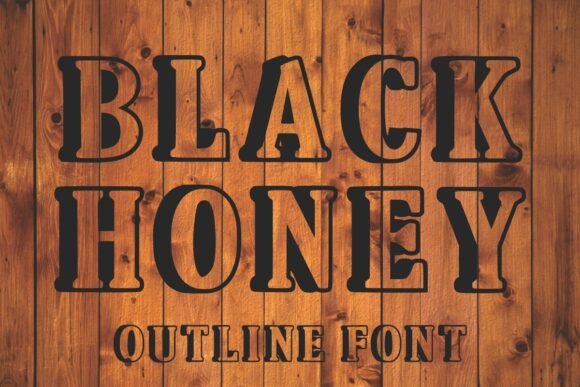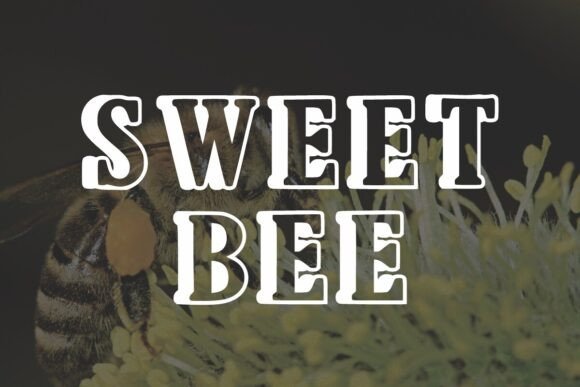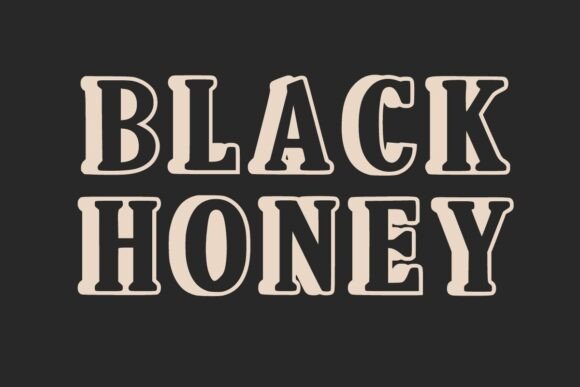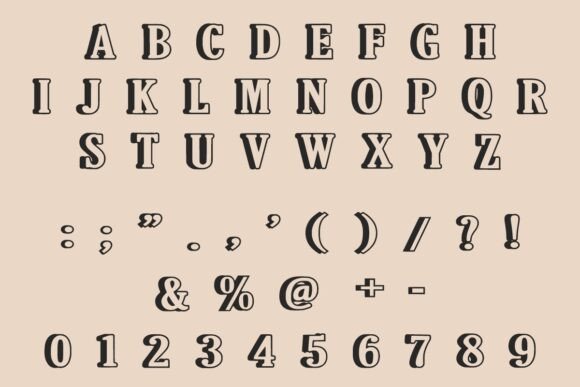
Black Honey Font
Black Honey is outline and modern display font. It is easy-to-read and conveys impeccable friendliness. Whether you’re using it for crafts, digital design, presentations, or making greeting cards, this font has the potential to become your favorite go-to font.